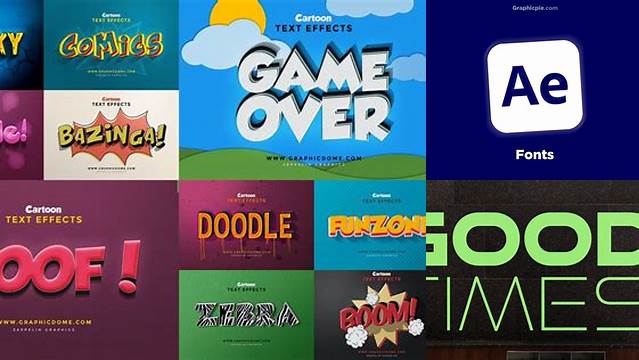
Best After Effects Fonts: Free & Premium Choices
Choosing the right fonts for After Effects projects is crucial for creating visually appealing and professional-looking animations and videos. The right typography can elevate your work, convey the right message, and capture your audience's attention. Whether you're working on motion graphics, title sequences, lower thirds, or any other type of video project, the fonts you choose play a significant role in the overall impact of your creation. So, let's dive into the world of After Effects fonts and explore some of the best options available, both free and premium, to help you make the perfect choice for your next project. Let's get started, guys!
1. Understanding Font Pairing in After Effects
Font pairing in After Effects is the art of combining different fonts to create a visually harmonious and effective design. Itβs about selecting fonts that complement each other, enhancing readability, and reinforcing the overall message of your project. Imagine you're cooking a delicious meal; you wouldn't throw in random ingredients without considering how they taste together, right? Similarly, in design, you need to carefully consider how your fonts work together. A well-paired font combination can make your text stand out, while a poor choice can make your project look amateurish and confusing. When you're starting with After Effects fonts, think about the mood you want to set. For example, a modern and clean font paired with a classic serif can create a sophisticated look. On the other hand, using two overly decorative fonts can clash and distract your viewers. Consider the hierarchy of your text as well. Your heading font should be bold and eye-catching, while your body text should be easy to read and less visually demanding. This helps guide the viewer's eye and ensures that your message is clear. Remember, the goal is to create a visual balance that enhances your message and makes your project more engaging and professional. Practice makes perfect, so don't be afraid to experiment and see what works best for you!
2. Best Serif Fonts for After Effects
When it comes to creating a sense of tradition, elegance, and readability, serif fonts are a fantastic choice for After Effects projects. These fonts, characterized by the small decorative strokes (serifs) at the end of each character, bring a classic touch to any design. For After Effects fonts, serif fonts are especially useful in situations where you want to convey authority, trustworthiness, or a sense of history. Think about documentaries, corporate videos, or projects that require a formal tone. Popular serif fonts like Times New Roman and Garamond are timeless classics, but there are many other stunning serif options available that can add a unique flair to your work. When you're choosing serif fonts, consider the overall aesthetic you're aiming for. A font like Baskerville, with its refined and elegant strokes, might be perfect for a high-end brand, while a bolder serif like Playfair Display can make a strong statement in a title sequence. Remember to think about readability, especially in motion graphics. A highly decorative serif might look beautiful in print, but it could become difficult to read when animated. Pairing a serif font with a sans-serif font can create a visually appealing contrast, with the serif used for headings and the sans-serif for body text. By understanding the nuances of serif fonts and how they interact with your design, you can elevate your After Effects projects and create a polished, professional look.
3. Top Sans-Serif Fonts for After Effects
Sans-serif fonts are the sleek, modern cousins of serif fonts, and they're incredibly versatile for After Effects projects. These fonts, which lack the small decorative strokes (serifs) found in serif fonts, offer a clean and contemporary look that's perfect for conveying simplicity, clarity, and a forward-thinking vibe. When you're working on motion graphics, title sequences, or any project that needs a modern touch, sans-serif fonts are an excellent choice. In the realm of After Effects fonts, some of the most popular sans-serif options include Helvetica, Arial, and Open Sans. These fonts are widely used for their readability and versatility, but there are countless other fantastic sans-serif fonts to explore. Think about the tone of your project when choosing a sans-serif font. A font like Futura, with its geometric shapes, can give your design a futuristic feel, while a font like Lato offers a more friendly and approachable look. Sans-serif fonts work exceptionally well in digital media because they tend to be very legible on screens. They're ideal for body text, lower thirds, and any text that needs to be easily read at a glance. Pairing a strong sans-serif font with a contrasting serif font can create a dynamic visual hierarchy, making your text stand out and your message clear. Experiment with different weights and styles within the sans-serif family to add visual interest and ensure that your text complements the overall design of your After Effects project. Sans-serif fonts are a must-have in any designer's toolkit, and mastering their use can greatly enhance the impact of your animations and videos.
4. Display Fonts for Eye-Catching Titles
When you need to make a statement and grab attention, display fonts are your best friend in After Effects. These fonts are designed to be eye-catching and unique, perfect for titles, headings, and any text element where you want to make a strong visual impact. Think of them as the stars of your typographic show! Display fonts come in a vast array of styles, from bold and dramatic to playful and quirky, giving you endless creative possibilities for your After Effects projects. Unlike body fonts, which prioritize readability over flair, display fonts are all about personality and visual appeal. Some popular display font categories include script fonts, which mimic handwriting; decorative fonts, which feature unique embellishments and shapes; and geometric fonts, which have a modern and structured look. When selecting display fonts, consider the overall tone and style of your project. A vintage-inspired script font might be perfect for a retro-themed video, while a bold, futuristic font would be ideal for a sci-fi animation. In After Effects, display fonts can be especially effective when animated. Think about animating the individual characters, adding dynamic effects, or using them in a kinetic typography sequence. However, it's important to use display fonts sparingly. Because they're so visually striking, using them too much can overwhelm your design. Reserve them for key text elements and pair them with simpler, more readable fonts for body text. Mastering the art of using display fonts will help you create titles and headings that truly stand out and capture your audience's attention.
5. Script Fonts for Elegant Typography
If you're aiming for elegance, personality, and a touch of handcrafted charm, script fonts are an excellent choice for your After Effects projects. These fonts mimic the flowing strokes of handwriting, adding a personal and stylish touch to any design. Imagine your text dancing across the screen with the grace of a calligrapher β that's the magic of script fonts. In the world of After Effects fonts, script fonts are particularly effective for creating a sense of sophistication and warmth. They're often used in wedding videos, romantic animations, and projects that require a delicate and refined aesthetic. Script fonts come in a variety of styles, from formal and elegant to casual and playful. Some mimic the strokes of traditional calligraphy, while others have a more modern and whimsical feel. When selecting script fonts, consider the overall mood and message of your project. A formal script font like Brush Script might be perfect for wedding invitations, while a more relaxed script font like Pacifico could be ideal for a travel vlog. In After Effects, script fonts can be beautifully animated to enhance their natural flow and rhythm. Think about animating the strokes as if they're being written in real-time, or adding subtle flourishes and swashes. However, it's important to use script fonts judiciously. Because they can be less readable than other fonts, it's best to use them for short text elements like titles, headings, or quotes. Pair them with simpler fonts for body text to ensure clarity. With the right script font, your After Effects projects can exude elegance and personality, leaving a lasting impression on your audience.
6. Monospace Fonts for Technical Designs
Monospace fonts might not be the flashiest choice in the world of typography, but they bring a unique and valuable quality to After Effects projects, especially when you're aiming for a technical, clean, or coding-related aesthetic. These fonts are characterized by having each character occupy the same horizontal space, creating a uniform and structured appearance. Think of classic typewriters β that's the essence of monospace fonts! When considering After Effects fonts, monospace options are particularly useful for displaying code snippets, data visualizations, or any text-heavy content where consistency and readability are key. In the realm of coding and programming, monospace fonts are essential because they make it easy to distinguish between characters that might look similar in other fonts, such as the letter βlβ and the number β1.β This clarity is crucial for debugging and ensuring that code is easily readable. In After Effects, monospace fonts can be used to create a sense of precision and order. They're great for lower thirds, captions, and any text elements that need to be clear and concise. For example, if you're creating a tutorial video that involves coding, using a monospace font for the code snippets will make them much easier to follow. Some popular monospace fonts include Courier New, Monaco, and Consolas. While monospace fonts might not be the go-to choice for every project, they have a unique charm and functionality that can add a distinct touch to your After Effects animations. They offer a sense of reliability and structure, making them perfect for projects that need a technical or minimalist feel.
7. Handwritten Fonts for a Personal Touch
For those After Effects projects where you want to infuse a sense of personality, warmth, and authenticity, handwritten fonts are an absolute treasure. These fonts capture the charm and imperfections of actual handwriting, making your text feel more human and relatable. Imagine a handwritten note β that's the kind of vibe you can bring to your animations with these fonts! In the vast world of After Effects fonts, handwritten options are particularly effective for creating a personal connection with your audience. They're often used in projects that evoke nostalgia, intimacy, or a handcrafted feel. Think about using them in greeting cards, personal videos, or any project where you want to convey a sense of warmth and sincerity. Handwritten fonts come in a delightful variety of styles, from elegant calligraphy to playful scribbles. Some mimic the look of ink on paper, while others have a more modern and stylized appearance. When selecting handwritten fonts, it's important to consider the overall tone of your project. A formal script might be perfect for a wedding invitation, while a casual scrawl could be ideal for a travelogue. In After Effects, handwritten fonts can be beautifully animated to enhance their natural flow and charm. Consider animating the strokes as if they're being written in real-time, or adding subtle textures to mimic the look of paper. However, keep in mind that handwritten fonts can sometimes be less readable than other fonts, so it's best to use them sparingly. Reserve them for headings, quotes, or other short text elements, and pair them with simpler fonts for body text. With the right handwritten font, your After Effects projects can feel more personal, inviting, and truly unique.
8. Best Fonts for Lower Thirds in After Effects
Lower thirds are those crucial text overlays that appear at the bottom of your screen, usually to identify speakers, provide context, or display key information. Choosing the right fonts for lower thirds in After Effects is essential for ensuring clarity, readability, and a professional look. Think of lower thirds as your on-screen messengers β they need to deliver information efficiently and stylishly. In the realm of After Effects fonts, the key consideration for lower thirds is legibility. Your audience needs to be able to read the text quickly and easily, even at a glance. This means opting for fonts that are clean, clear, and free from excessive ornamentation. Sans-serif fonts are often a great choice for lower thirds because they tend to be very readable on screens. Fonts like Open Sans, Roboto, and Montserrat offer excellent clarity and a modern aesthetic. However, serif fonts can also work well, especially if you choose a simple and well-designed serif like Lato or Merriweather. When selecting fonts for lower thirds, think about the overall style of your video. The fonts should complement the visuals and reinforce your message. A minimalist font might be perfect for a corporate video, while a bolder font could work well for a dynamic news segment. In After Effects, pay attention to the size and spacing of your text. Make sure the font is large enough to be easily read on different screen sizes, and adjust the letter spacing and line height to ensure optimal readability. Avoid using overly decorative fonts or fonts that are too thin, as these can be difficult to read on screen. By carefully selecting your fonts and paying attention to readability, you can create lower thirds that are both informative and visually appealing, enhancing the overall quality of your After Effects projects.
9. Fonts for Titles and Headlines in After Effects
Titles and headlines are the visual hooks that grab your audience's attention and set the tone for your After Effects projects. Choosing the right fonts for these key text elements is crucial for making a strong first impression and conveying your message effectively. Think of your titles and headlines as the stars of your typographic show β they need to shine! When it comes to After Effects fonts for titles and headlines, you have a lot of creative freedom. This is where you can really let your personality shine and select fonts that reflect the style and mood of your project. Display fonts are often a fantastic choice for titles and headlines because they're designed to be eye-catching and unique. Bold serif fonts, modern sans-serif fonts, and even script fonts can work beautifully, depending on the aesthetic you're aiming for. If you want to create a sense of drama and impact, consider using a large, bold font that fills the screen. For a more elegant and sophisticated look, a refined serif font or a stylish script font might be the way to go. In After Effects, experiment with animating your titles and headlines to add extra flair. Kinetic typography, where the text moves and changes dynamically, can be incredibly engaging. Think about animating the individual characters, adding visual effects, or using masks to reveal the text in interesting ways. However, it's important to balance style with readability. Make sure your titles and headlines are easy to read at a glance, even when they're animated. Avoid using overly complex or decorative fonts that might distract from your message. By carefully selecting your fonts and adding creative animation, you can create titles and headlines that truly captivate your audience and make your After Effects projects stand out.
10. Free Fonts vs. Premium Fonts for After Effects
One of the big decisions you'll face when choosing After Effects fonts is whether to go with free fonts or invest in premium options. Both have their own set of advantages and considerations, so let's dive into the world of free vs. premium fonts to help you make the best choice for your projects. Free fonts are fantastic because, well, they're free! This makes them a great option if you're on a tight budget or just starting out with After Effects. There are many websites that offer high-quality free fonts, and you can often find some real gems if you're willing to do a little searching. However, free fonts do come with some potential drawbacks. The selection might be more limited compared to premium options, and the quality can vary. Some free fonts might not be as polished or well-designed as premium fonts, and they might not include as many font weights or styles. Premium fonts, on the other hand, offer a wider range of options and often come with a higher level of quality and craftsmanship. These fonts are created by professional type designers and typically include a full character set, multiple weights and styles, and sometimes even additional features like ligatures and alternate characters. Investing in premium fonts can give your After Effects projects a more polished and professional look. They also tend to come with more flexible licensing options, which is important if you're using the fonts for commercial projects. When deciding between free and premium fonts, think about your budget, the scope of your project, and the level of quality you're aiming for. If you're working on a high-profile project or want to ensure a unique and professional look, premium fonts might be the way to go. If you're on a budget or just experimenting, free fonts can be a great starting point. No matter which you choose, make sure to always check the licensing terms to ensure you're using the fonts legally.
11. Where to Find Free After Effects Fonts
Finding the perfect free fonts for your After Effects projects can feel like a treasure hunt, but there are some great resources out there to help you on your quest. The internet is brimming with websites offering free fonts, but it's important to know where to look to ensure you're getting high-quality options that are safe to use. One of the best places to start your search for free After Effects fonts is Google Fonts. This is a fantastic resource that offers a vast library of open-source fonts, all of which are free to use for both personal and commercial projects. Google Fonts are well-designed, easy to download, and compatible with After Effects and other design software. Another great option is Font Squirrel. This website curates a selection of free fonts that are licensed for commercial use, meaning you can use them in your projects without worrying about copyright issues. Font Squirrel also offers a handy Font Identifier tool that can help you find fonts similar to ones you've seen elsewhere. DaFont is another popular website that hosts a massive collection of free fonts. While the quality can vary, DaFont offers a diverse range of styles, from classic to quirky, so you're likely to find something that suits your needs. Just be sure to check the licensing terms for each font, as some are only free for personal use. Creative Market is a marketplace that offers both free and premium design resources. They often have free font bundles available for download, so it's worth checking their website regularly. Behance and Dribbble, two popular platforms for designers, are also great places to discover free fonts. Designers often share their font creations on these platforms, and you can find some unique and stylish options. When downloading free fonts, always be cautious and ensure you're getting them from reputable sources. Avoid websites that look suspicious or offer fonts from unknown designers. By exploring these resources and exercising a little caution, you can build a fantastic collection of free fonts to enhance your After Effects projects.
12. Best Websites for Premium After Effects Fonts
If you're looking to elevate the typography in your After Effects projects and have the budget to invest, exploring premium font websites is the way to go. These platforms offer a vast selection of professionally designed fonts, often with extended features, licensing options, and support. Premium fonts can give your animations a polished and unique look, making them well worth the investment for serious designers and animators. One of the top websites for premium After Effects fonts is MyFonts. This platform boasts one of the largest font libraries online, with a huge variety of styles and designers represented. MyFonts offers detailed font previews, trial fonts, and flexible licensing options, making it easy to find the perfect font for your project. Another excellent choice is FontShop, a long-standing player in the typography world. FontShop offers a curated collection of high-quality fonts from renowned type foundries, with a focus on design excellence and technical quality. They also provide helpful resources and support to ensure you get the most out of your fonts. Creative Market is a popular marketplace for all kinds of design assets, including fonts. While they also offer free fonts, their premium selection is particularly impressive, with a wide range of styles and price points. Creative Market often has font bundles and sales, making it a great place to find deals on premium fonts. Adobe Fonts is a fantastic option if you're already an Adobe Creative Cloud subscriber. This service gives you access to a vast library of fonts that are fully integrated with After Effects and other Adobe applications. Adobe Fonts offers a seamless experience and ensures that your fonts are always properly licensed. Envato Elements is a subscription-based service that offers unlimited downloads of fonts, graphics, and other design assets. This can be a cost-effective option if you need a lot of fonts for various projects. When choosing a premium font website, consider your budget, the variety of fonts offered, and the licensing terms. Investing in premium fonts can significantly enhance the quality of your After Effects projects, so it's worth doing your research and finding the best option for your needs.